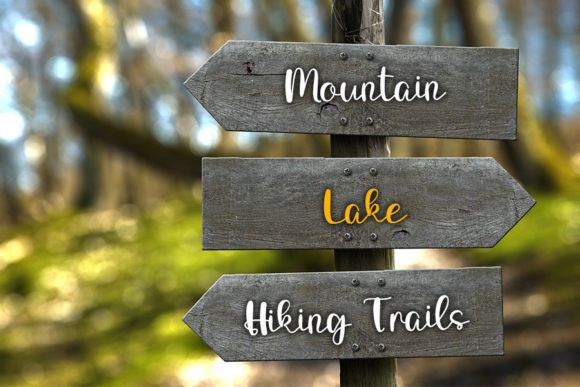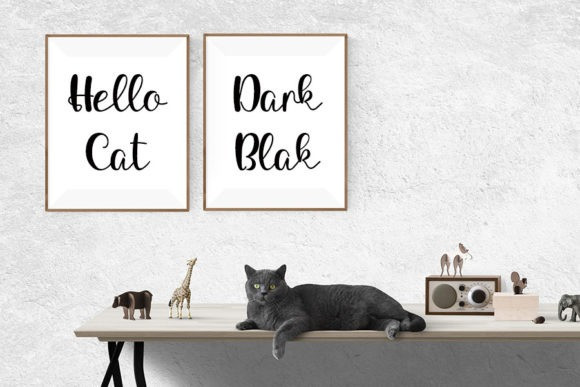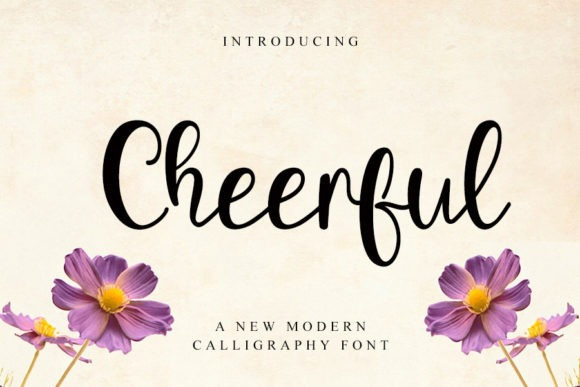
Cheerful Font
Cheerful Script Font is a delicate, elegant and flowing handwritten font. It has beautiful and well balanced characters and as a result, it matches a wide pool of designs. Add it to your most creative ideas and notice how it makes them come alive!